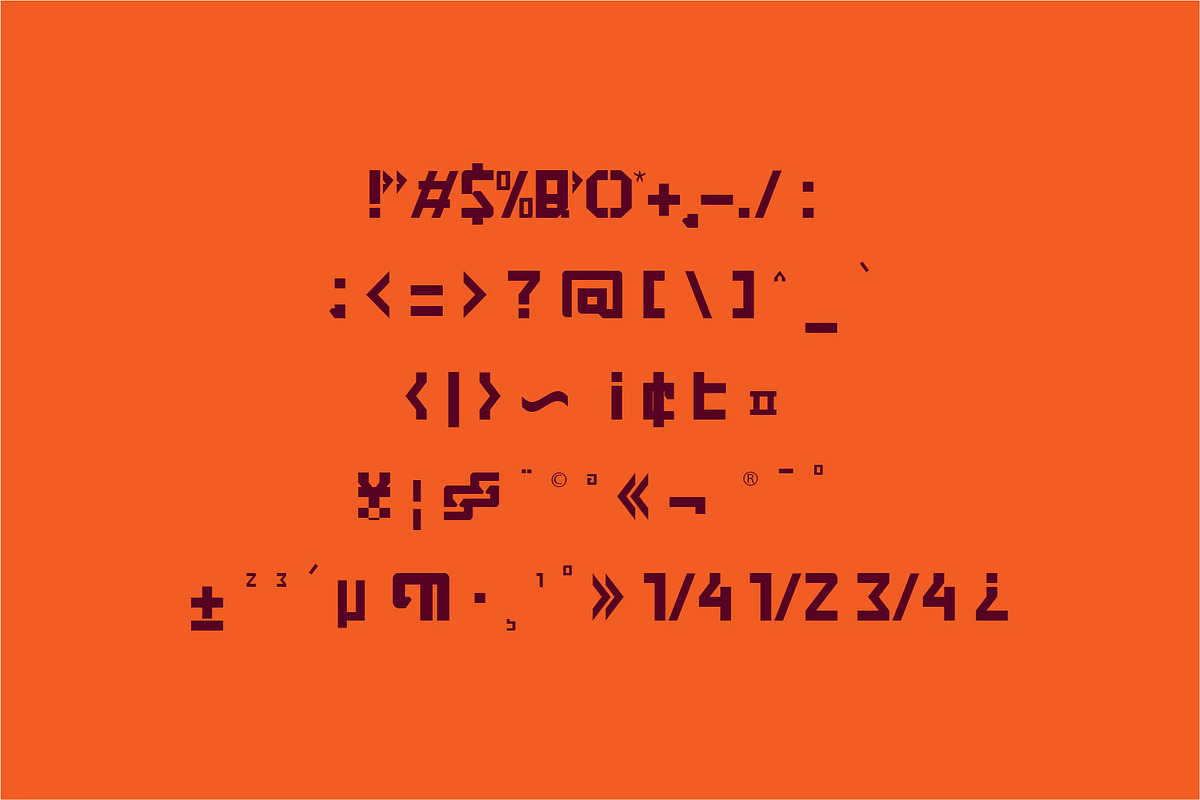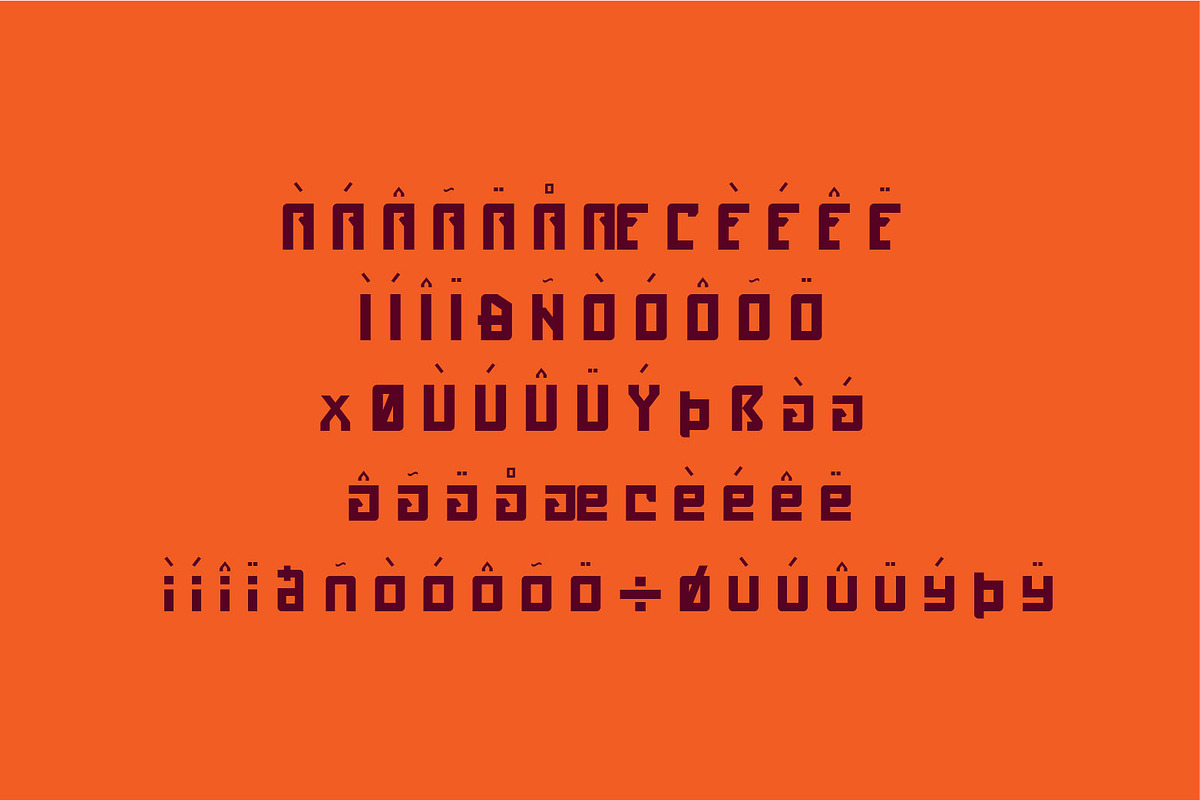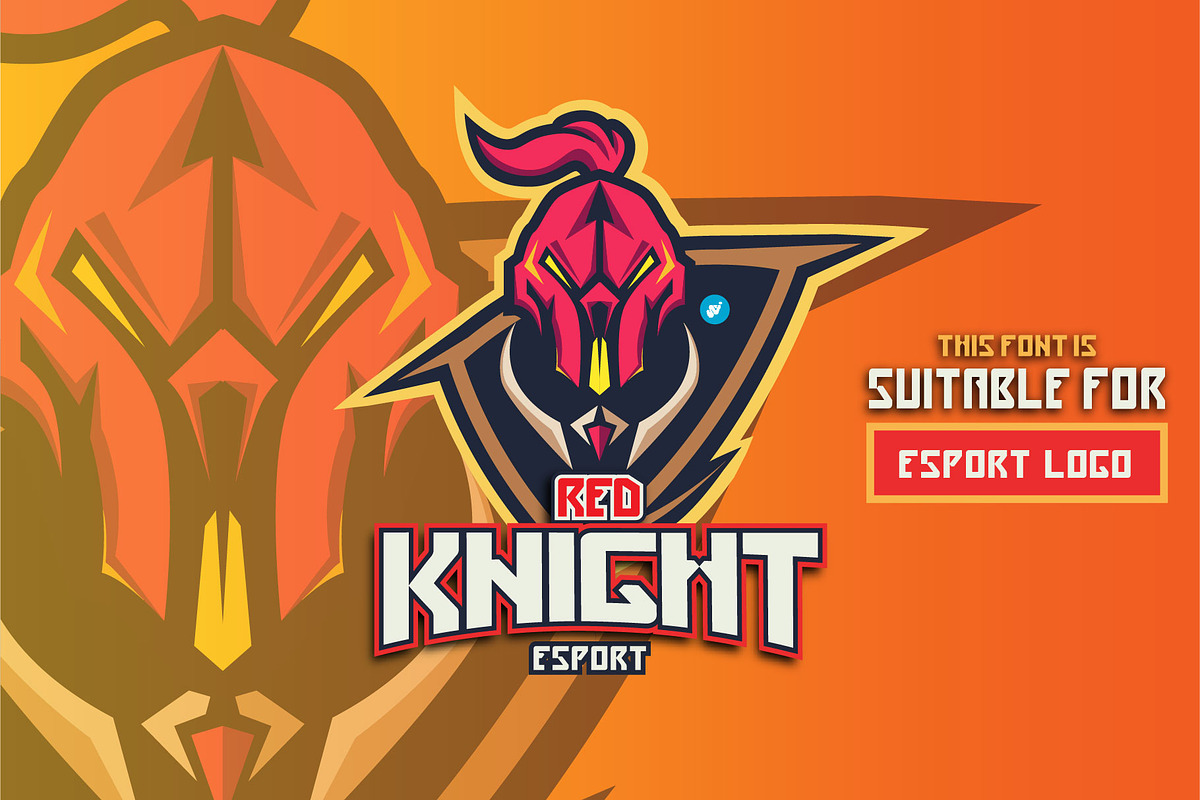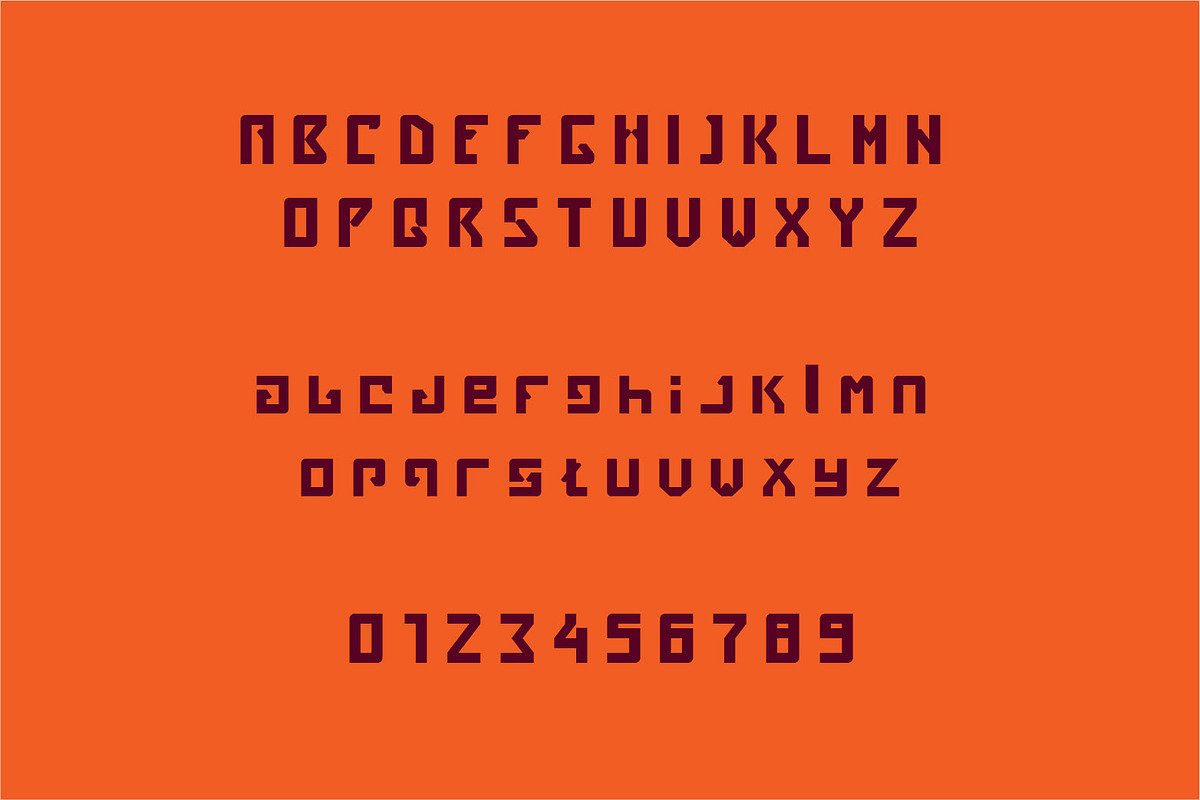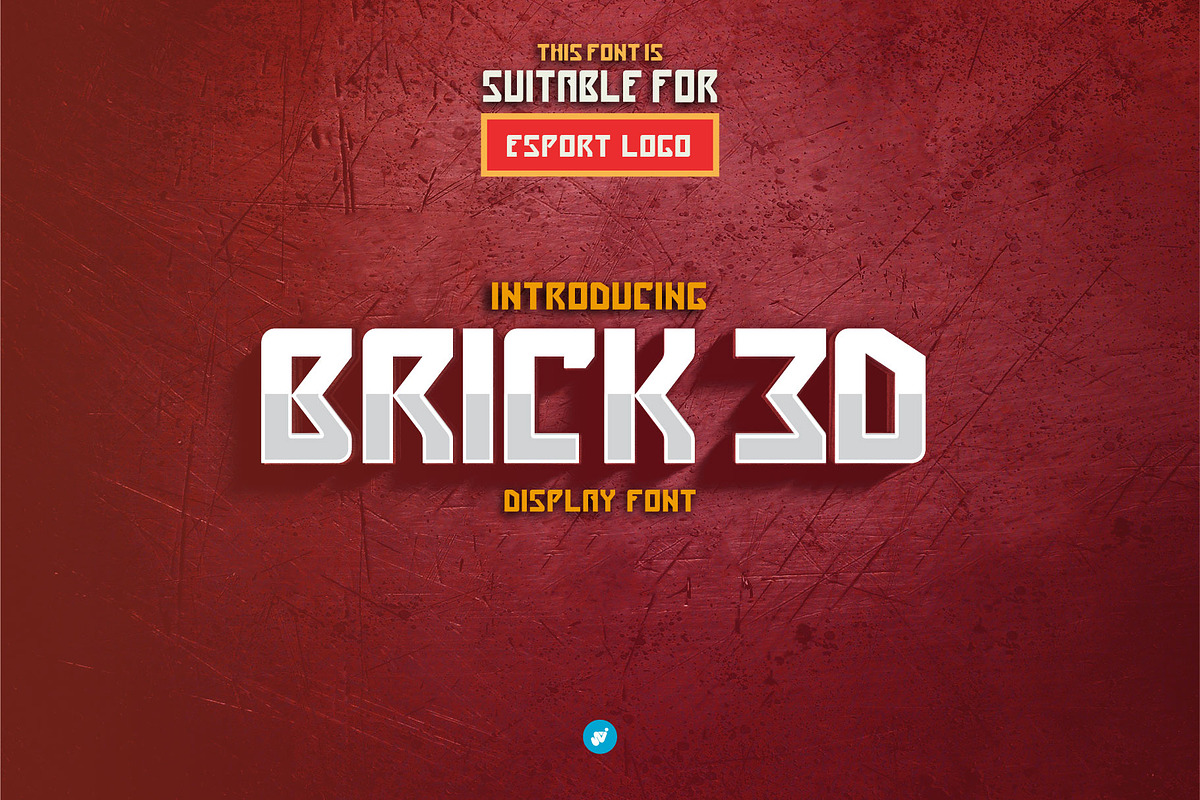
Brick 3D esport Font
More information about this Font Introducing “Brick 3D esport Font”
This font can be used for any variety purpose, such as: Logo, Esport Logo, Band Logo, Championship Logo, Military Logo and Clothing